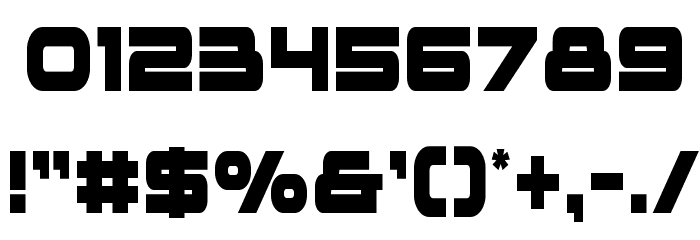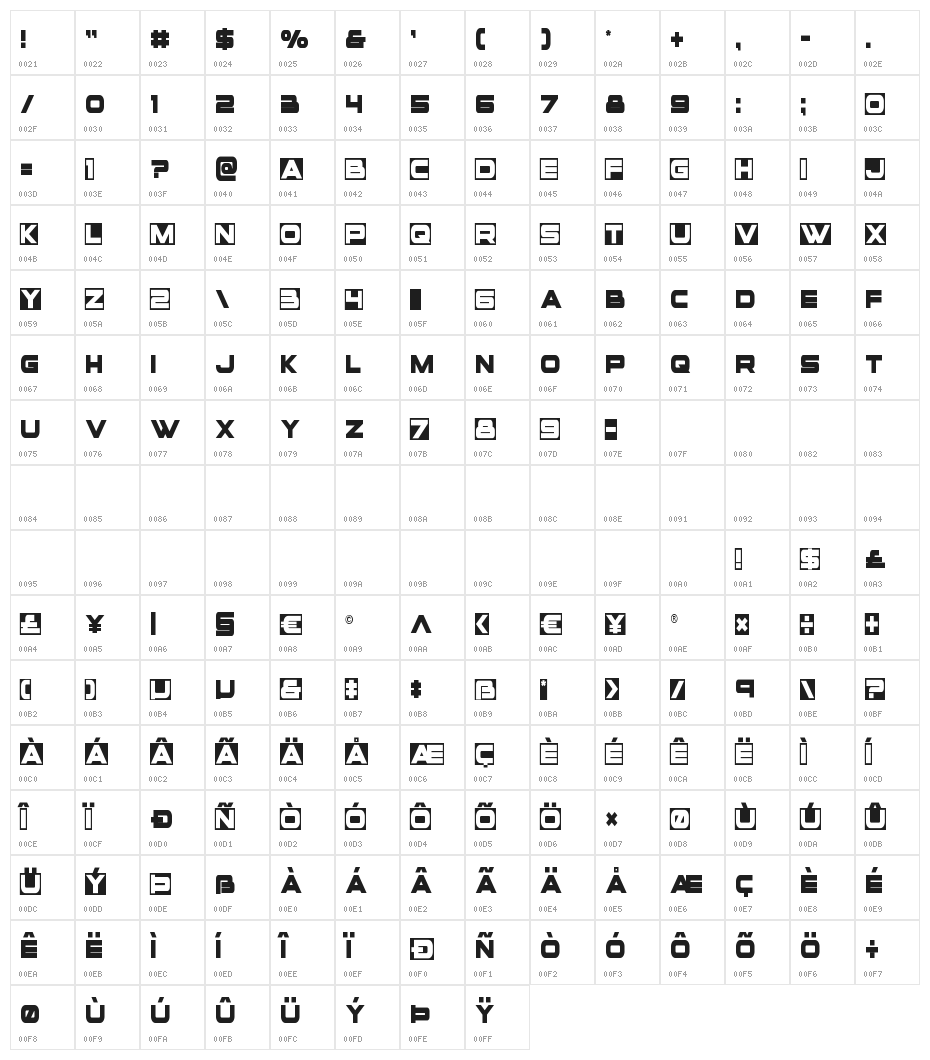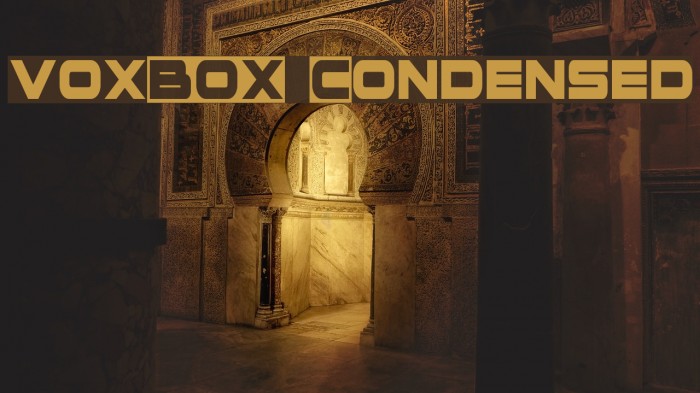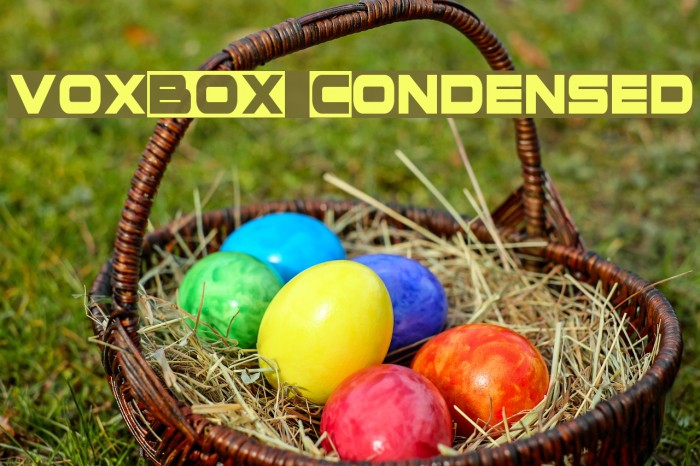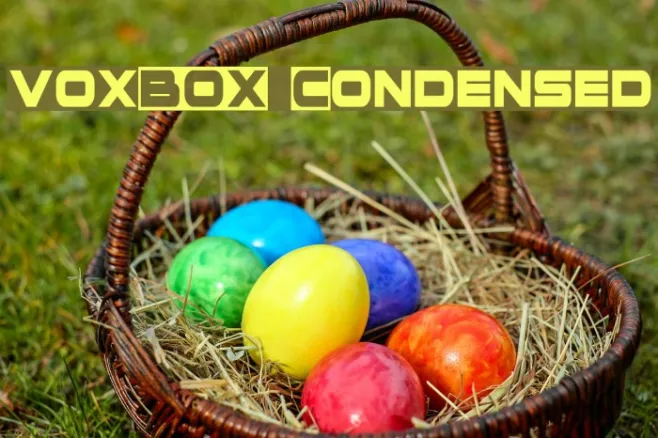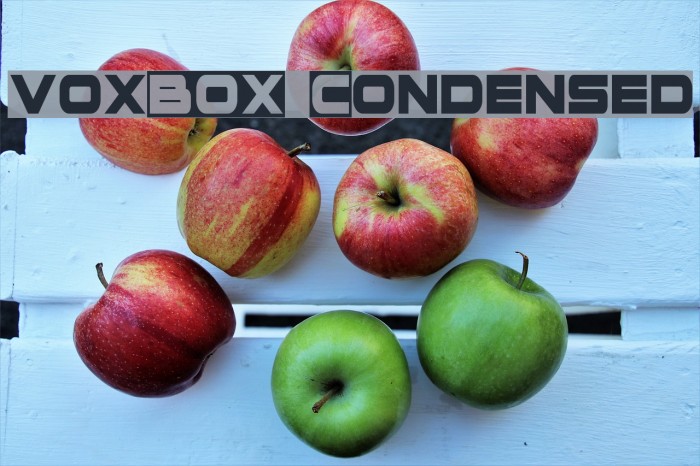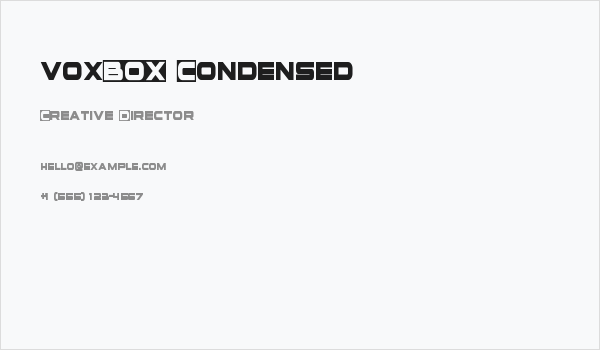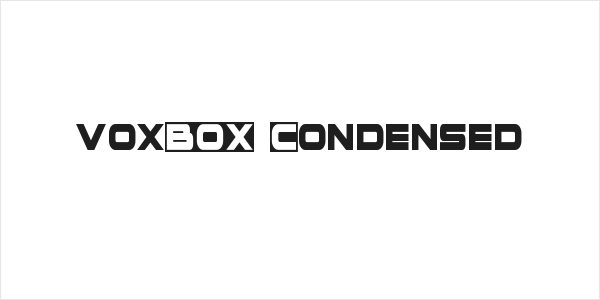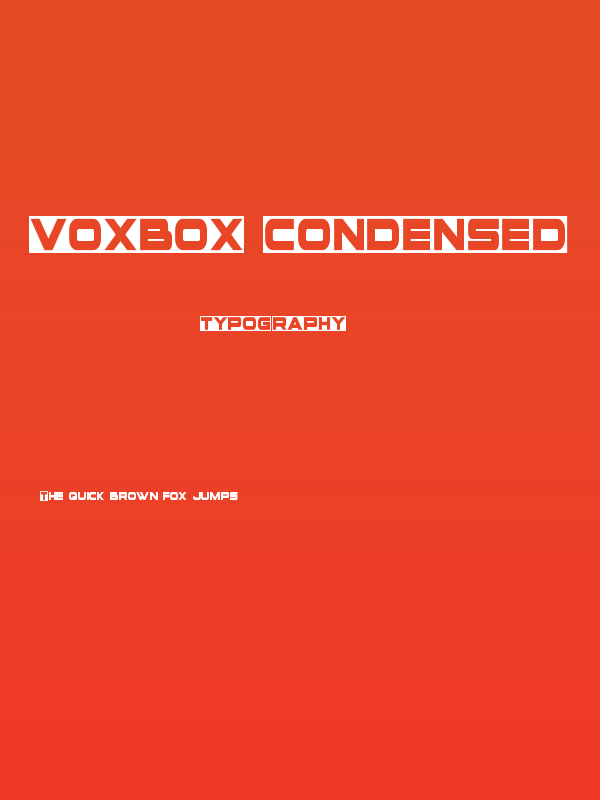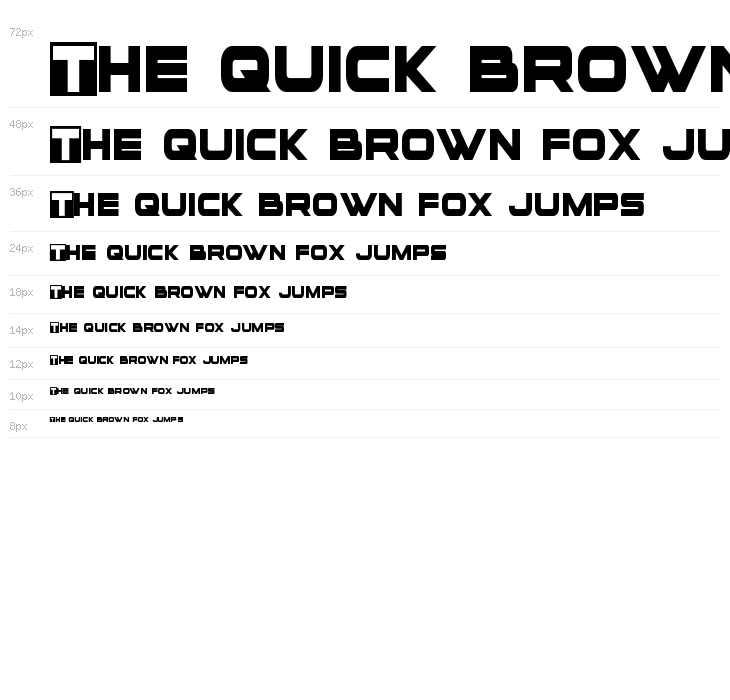
voxBOX Condensed Font
voxBOX Condensed Description
This font features a bold, geometric design with a strong emphasis on angular shapes and sharp edges. The characters are condensed, giving a compact and efficient appearance. The uppercase letters are particularly striking, with a uniform height and width that create a cohesive look. The numerals and special characters maintain the same bold style, ensuring consistency across all elements. The font's modern aesthetic is suitable for projects that require a strong visual impact, such as branding, advertising, and digital media.